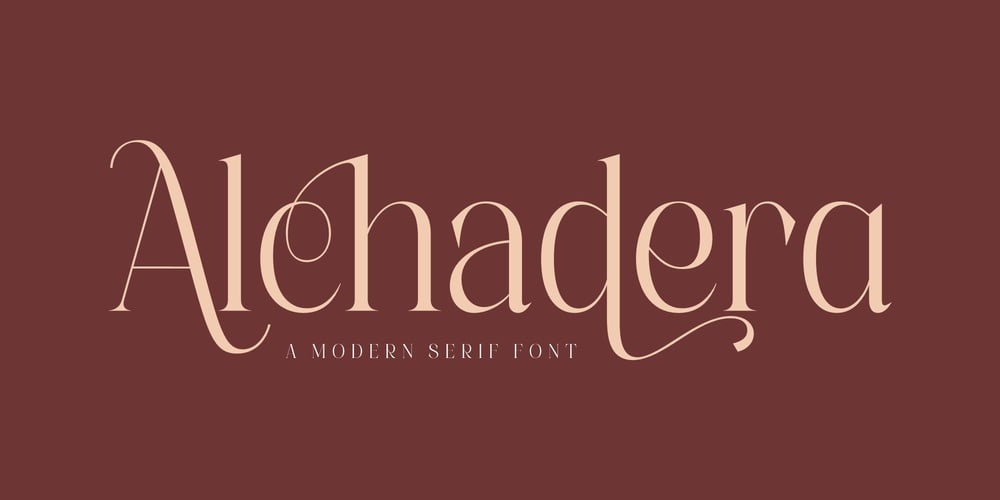
Alchadera Font Family was designed by Heru Utama Putra and published by Letterena Studios. Alchadera contains 2 styles and family package options. Proudly present Alchadera Typeface.A serif modern and classic typeface that has its own unique style & modern look.This typeface is perfect for an elegant & luxury logo, book or movie title design, fashion brand, magazine, clothes, lettering, quotes, and so much more.